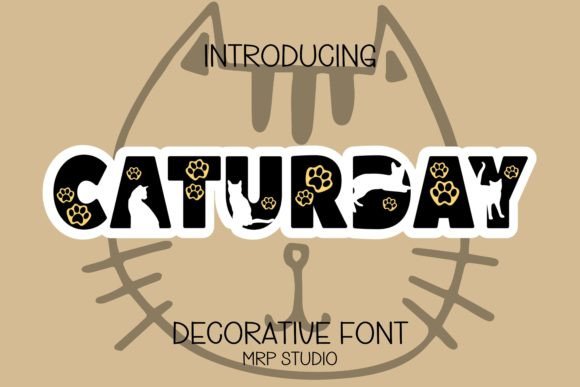
Introducing Caturday Font, the ultimate choice for adding a touch of whimsy and charm to your projects. Created by MRP STUDIO, this decorative font is a must-have for anyone looking to elevate their designs with adorable cat silhouettes and paws.
With its unique and eye-catching details, Caturday Font is ideal for a wide range of purposes. Whether you're creating pet products, offering services for feline enthusiasts, designing children's books, or crafting social media graphics, this font is your perfect companion.
Imagine the joy and playfulness that Caturday Font will bring to your designs. Each letter and symbol is meticulously crafted to capture the essence of cats, making it irresistible to cat lovers and design enthusiasts alike. It's the perfect way to infuse your projects with personality and creativity.
But Caturday Font is not just about aesthetics. It also offers functionality and versatility. With its bold and clear letterforms, it ensures legibility while maintaining its playful charm. This makes it an excellent choice for modern resumes that need to stand out from the crowd. Impress potential employers with a resume that is both professional and captivating.
Caturday Font goes beyond being just a font. It's an experience that sparks emotion and connection. It brings to life the joy and love we have for our feline friends, making it a font that truly resonates with people on a deeper level.
Remember, Caturday Font is not just a font; it's a world of whimsy and charm waiting to be explored. So go ahead, unleash your creativity, and let Caturday Font be your guide.